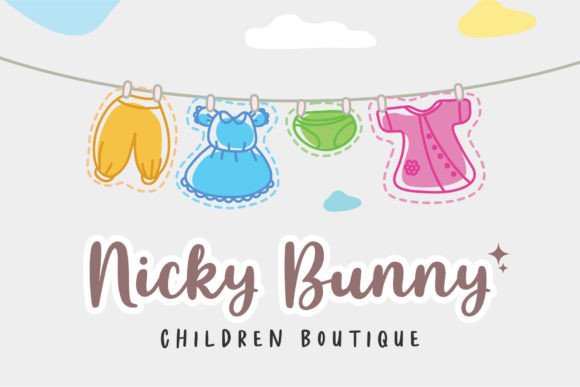
Introduction to Saturday Garden Font
Have you ever stared at a blank canvas, waiting for the perfect font to bring your creative project to life? That’s exactly what happened to me last weekend when I was working on a new branding campaign. I wanted something that would capture the essence of a summer afternoon, and that’s when I stumbled upon the enchanting Saturday Garden Font.
As a designer, I know how crucial it is to have a reliable design resource that can elevate our work. The Saturday Garden Font is more than just a font – it’s a game-changer. With its charming characters and high-quality design, it’s perfect for adding a touch of whimsy to your designs. Plus, with a transparent background option, you can easily integrate it into your projects without any hassle.
Key Features of Saturday Garden Font
- High-quality, elegant design perfect for creative projects, such as wedding invitations and garden-themed stationery.
- Comes in a single weight with 250 glyphs, making it suitable for a variety of design applications.
- Unique, whimsical design that adds a touch of charm and sophistication to any creative project or design.
Honest Review: Saturday Garden Font
As a designer, I’m always on the lookout for unique and high-quality design resources. Recently, I came across the Saturday Garden Font, and I was excited to give it a try.
Here are some things that I think work well with this font:
- ✨ Unique and whimsical style: The Saturday Garden Font has a beautiful, hand-drawn feel that’s perfect for creative projects that need a touch of personality.
- ⚠️ Limited character set: The font only includes a basic character set, so you may not find all the symbols or languages you need.
- ⚠️ Not suitable for large blocks of text: Due to its whimsical style, the Saturday Garden Font is best used for short phrases or headlines rather than large blocks of text.
Overall, I’m impressed with the Saturday Garden Font, and I think it’s a great addition to any designer’s toolkit. While it may have some limitations, its unique style and high-quality vectors make it a valuable resource for creative projects.
The Saturday Garden Font is perfect for:
- Baby shower invitations and decorations
- Outdoor and gardening-themed designs
- Wedding and event planning materials
Tips for Getting the Most Out of the Saturday Garden Font
To get the most out of the Saturday Garden Font, try using it in combination with other design elements, such as flowers, leaves, and other garden-inspired graphics. You can also experiment with different font sizes, colors, and styles to create unique and eye-catching designs.